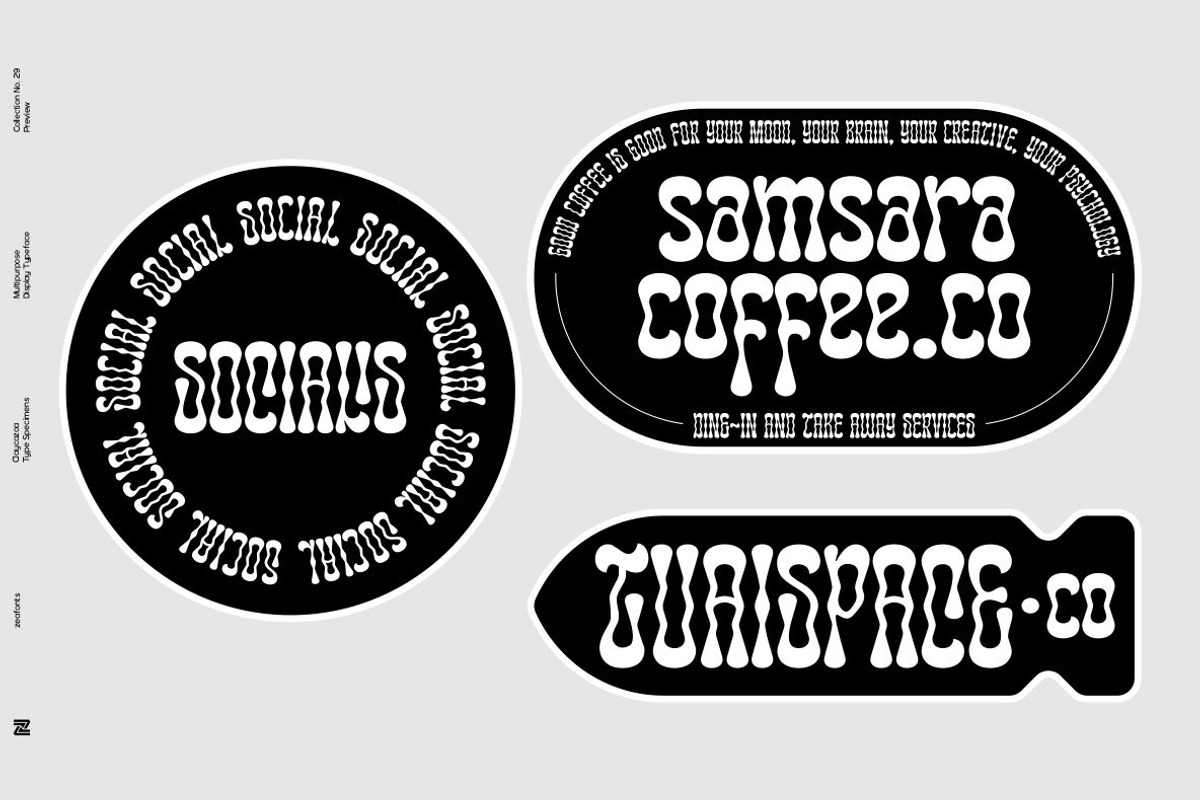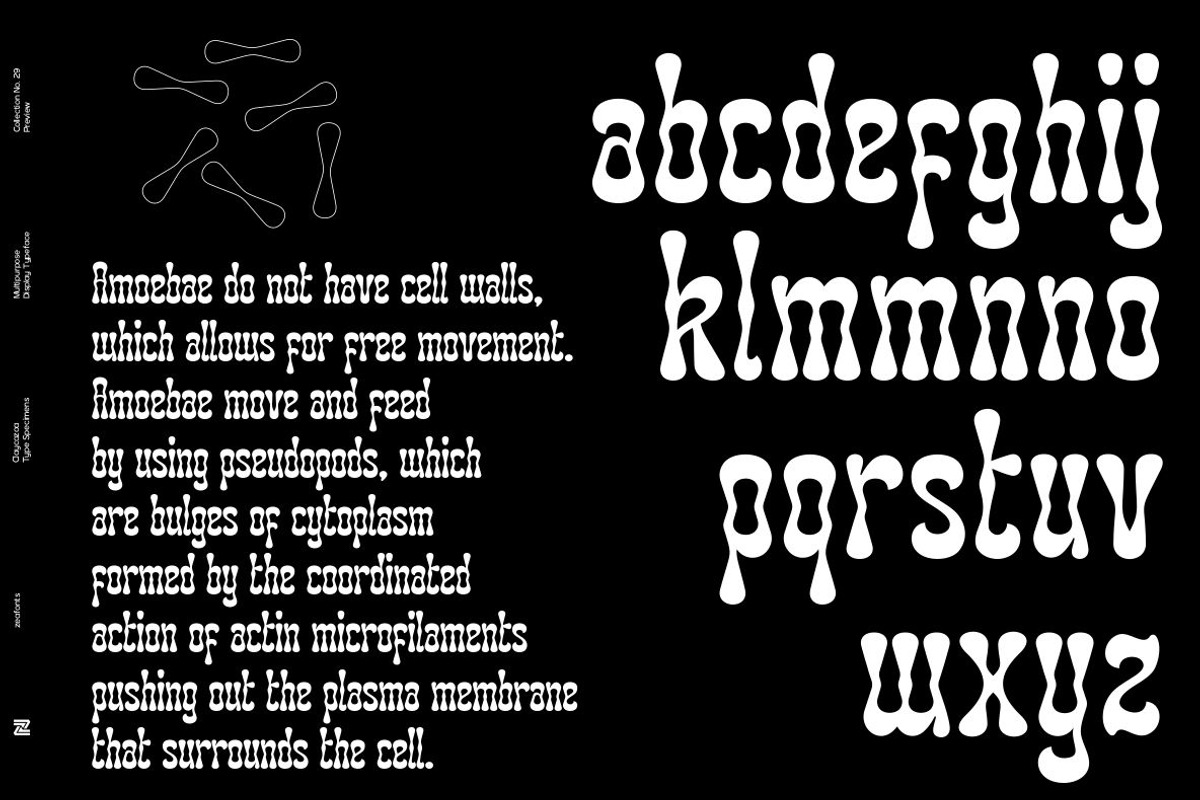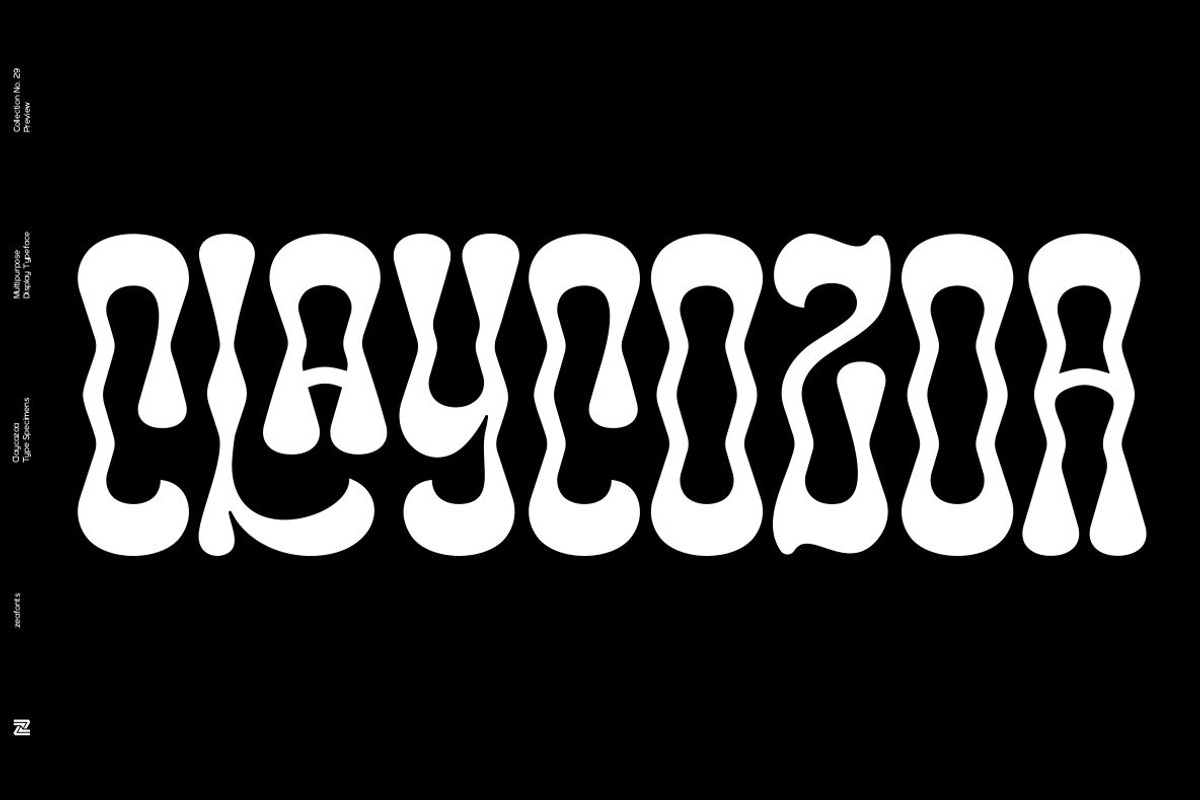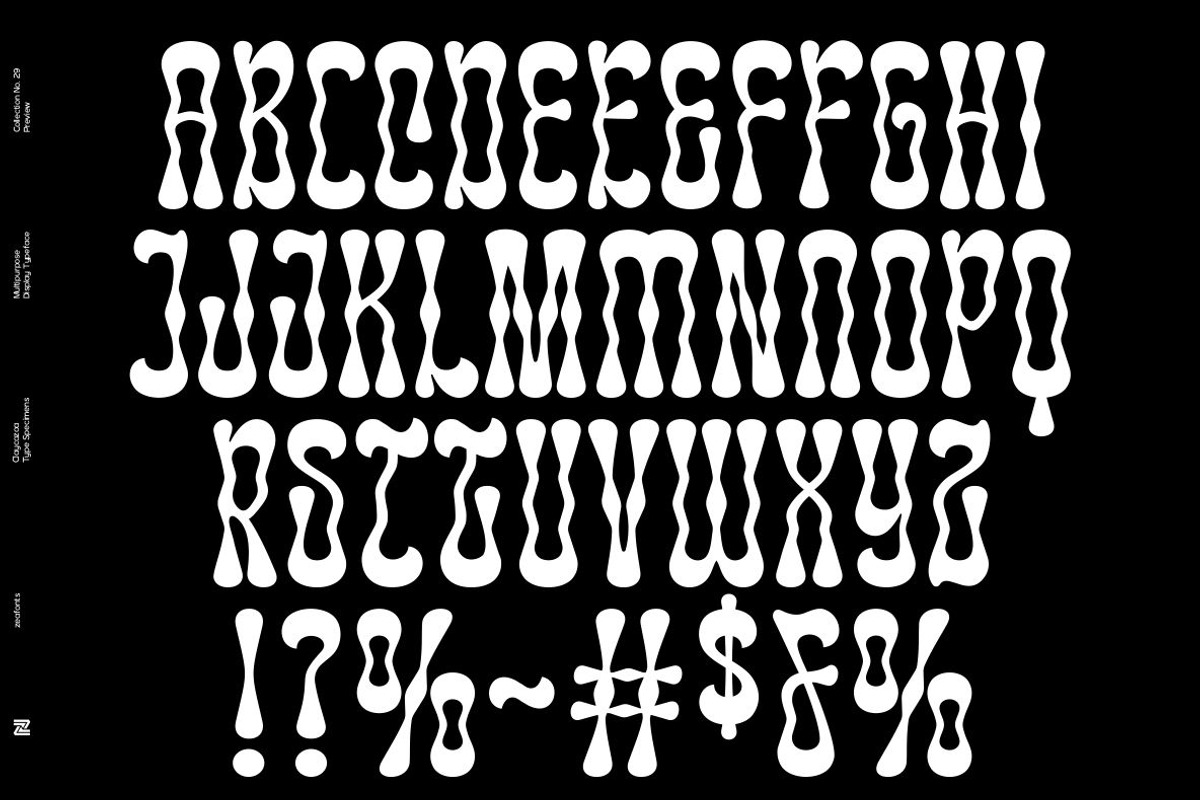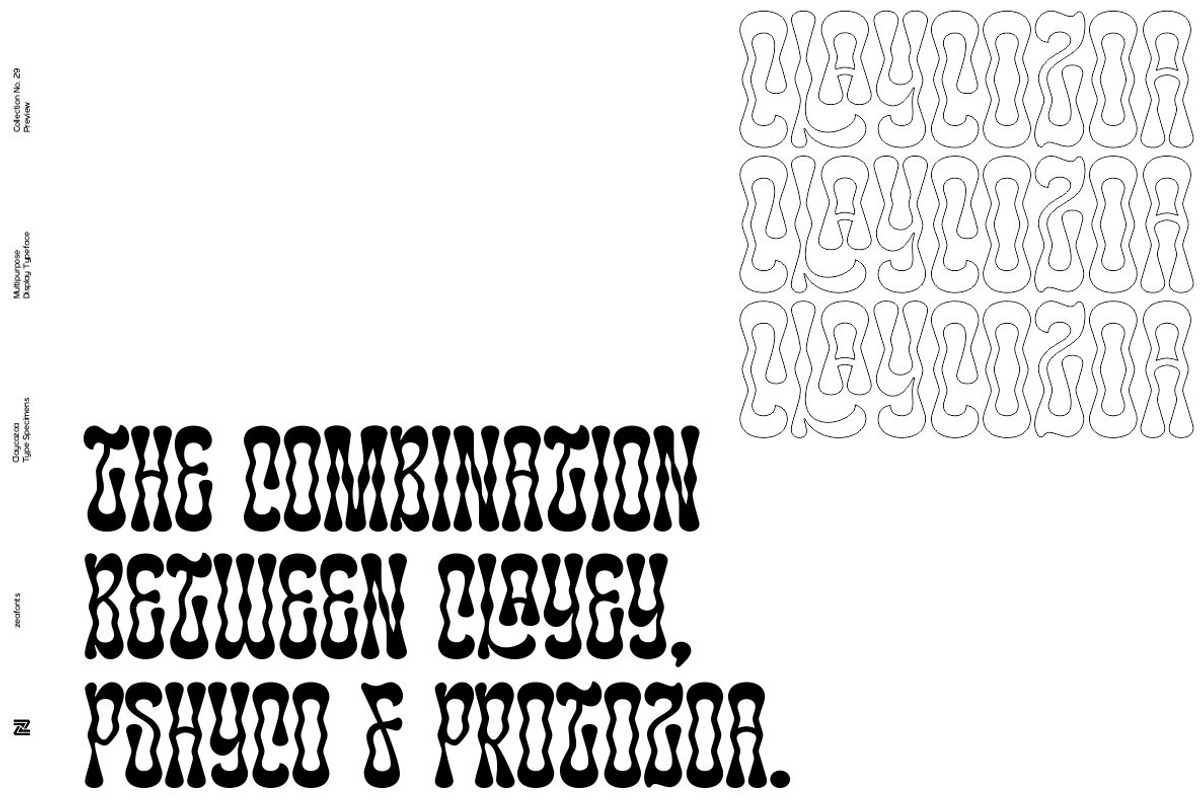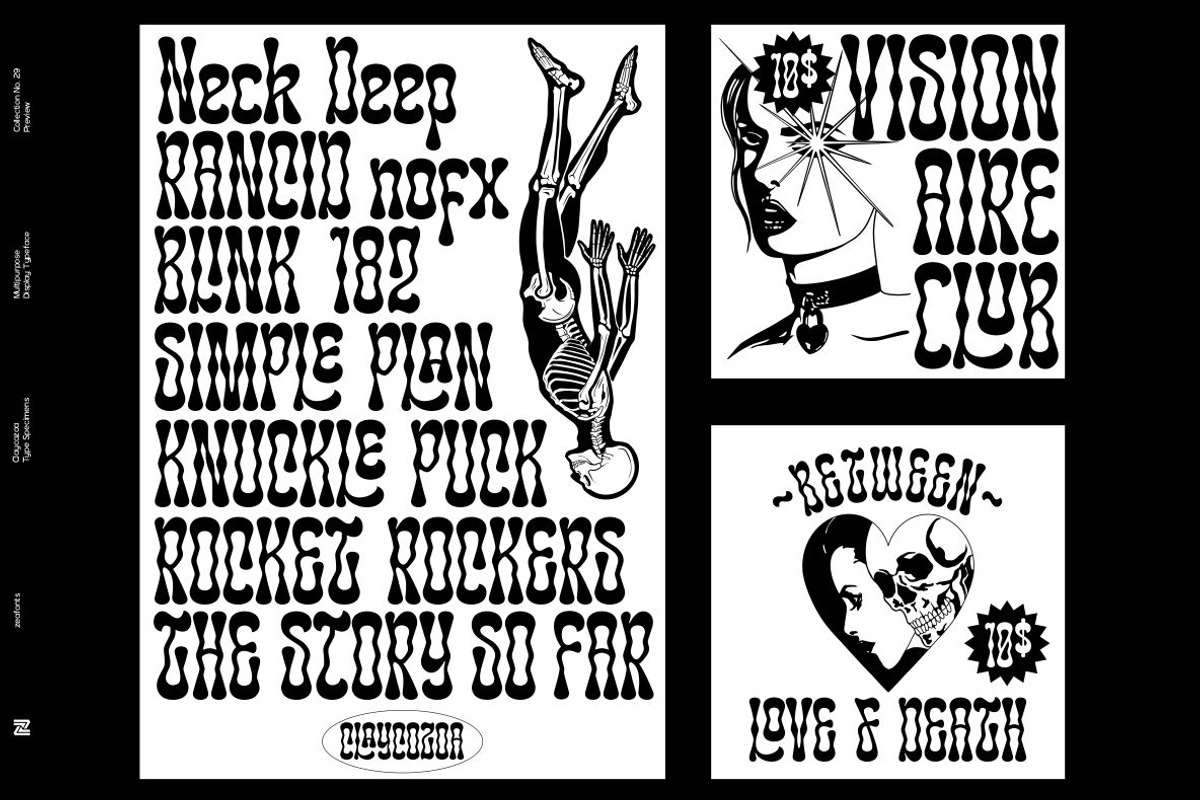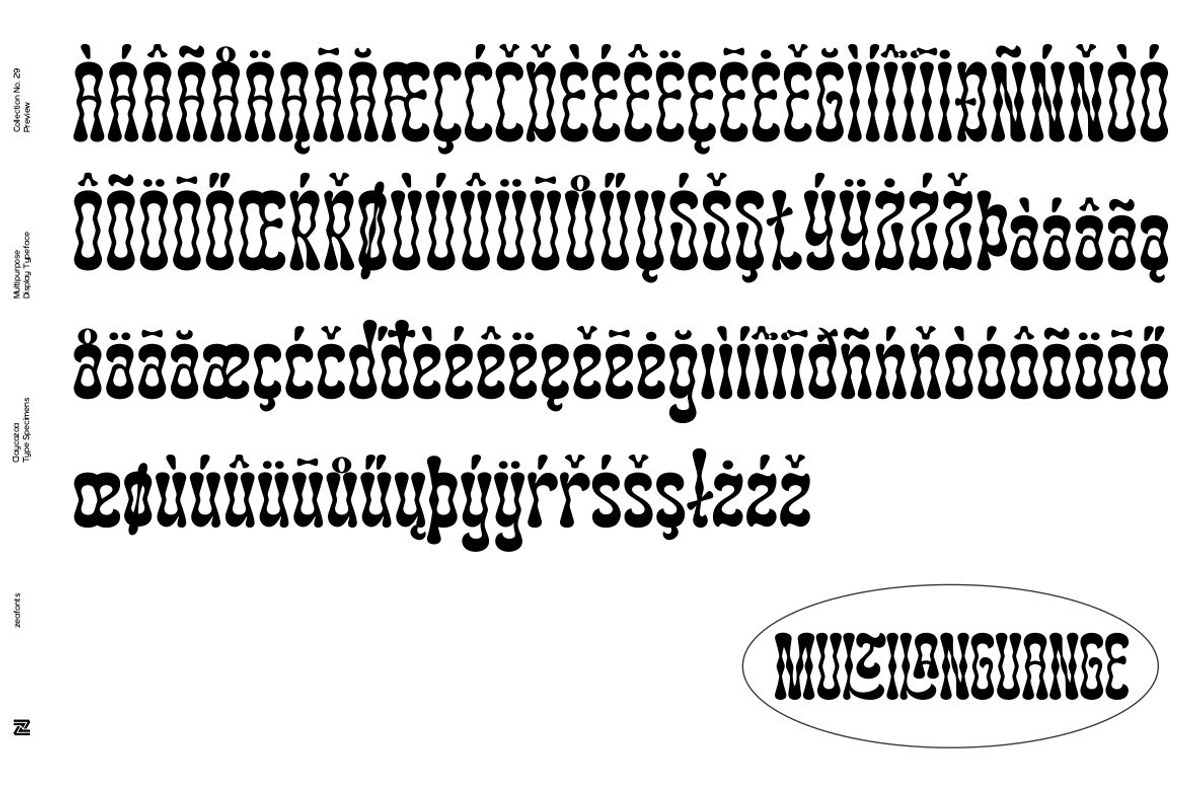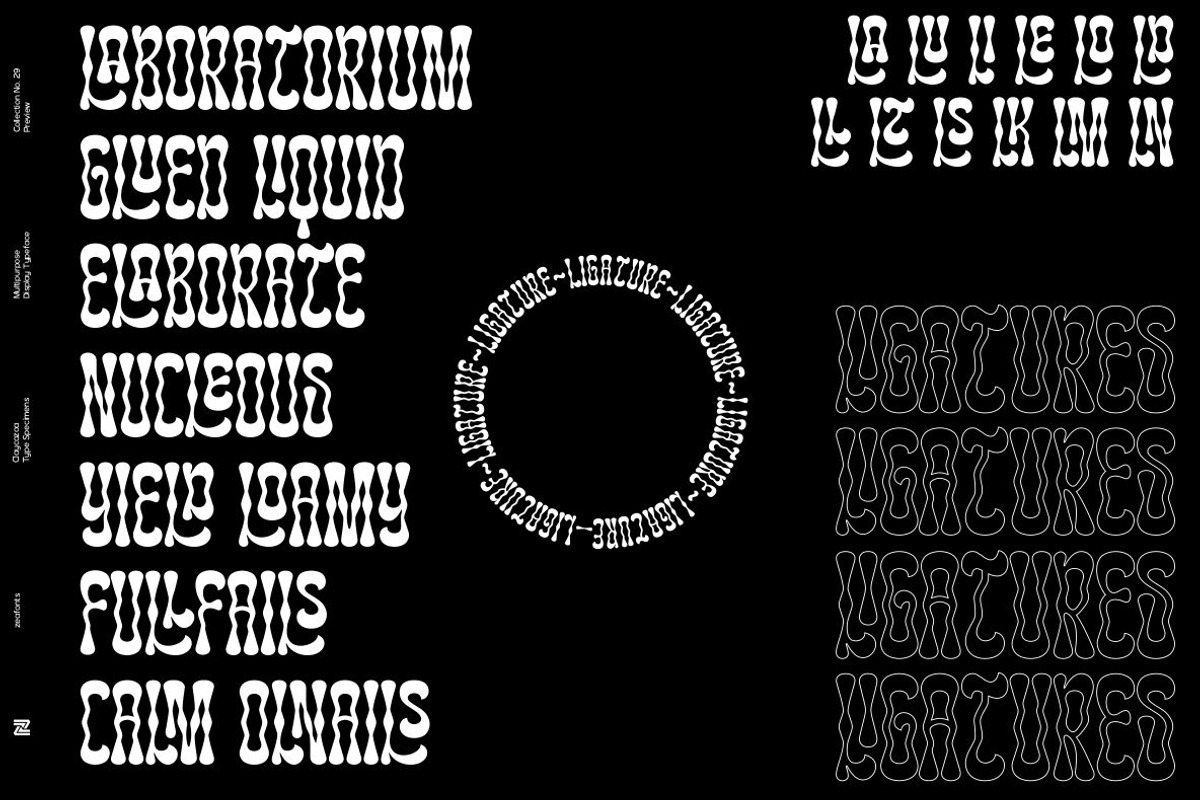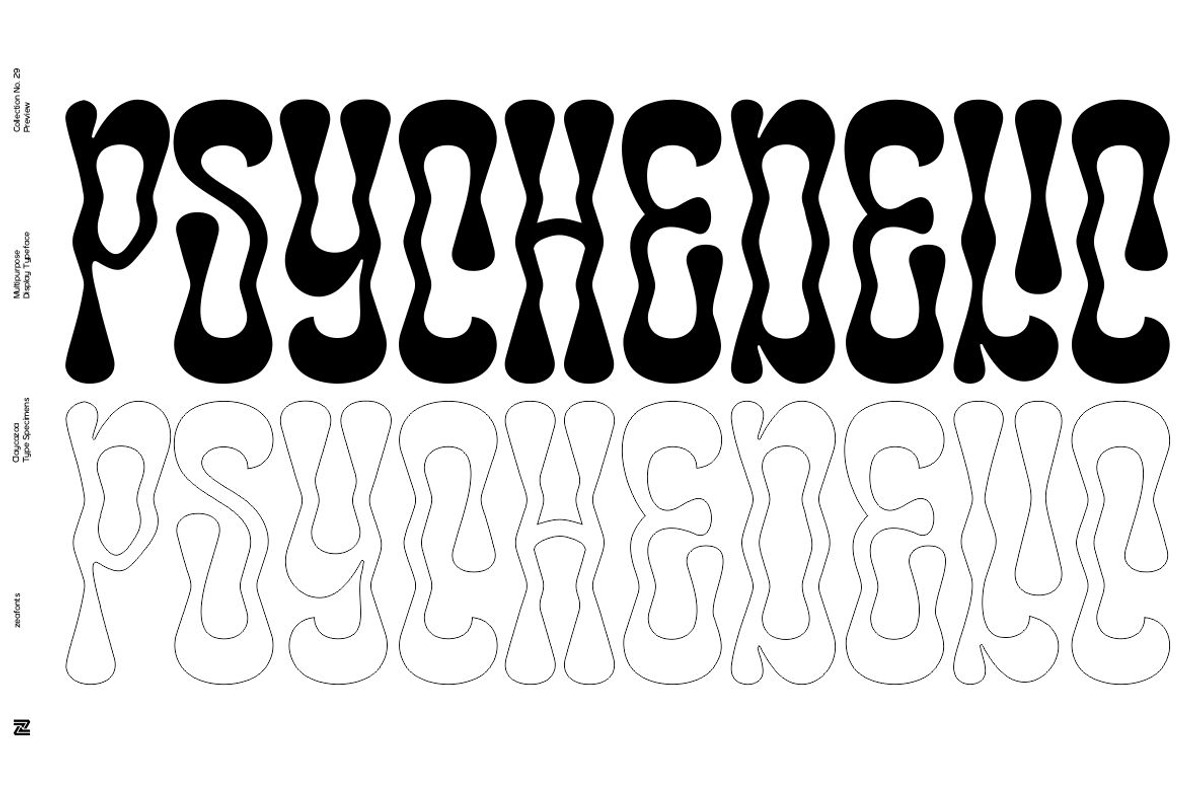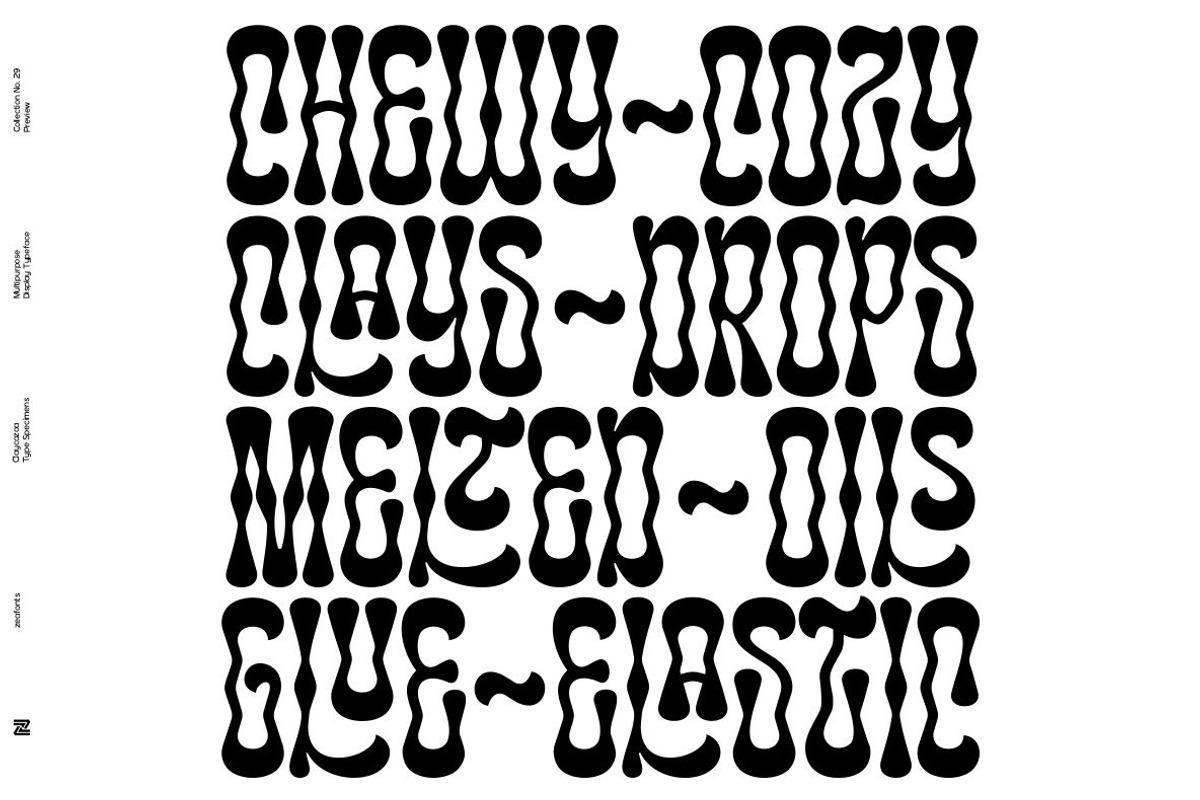
CLAYCOZOA
Claycozoa is a versatile, bold and unique display font. Was inspired by Psychedelic and Art Nouveau style, Claycozoa has a unique style with stylistic, alternates, ligatures and supports multilingual languages. The organic feel of Claycozoa evokes a psychedelic vibe which you can use to take your designs to a new level. The font is great for posters, flyers, apparel, quotes, greeting cards, product packaging, album covers, movies, and more.